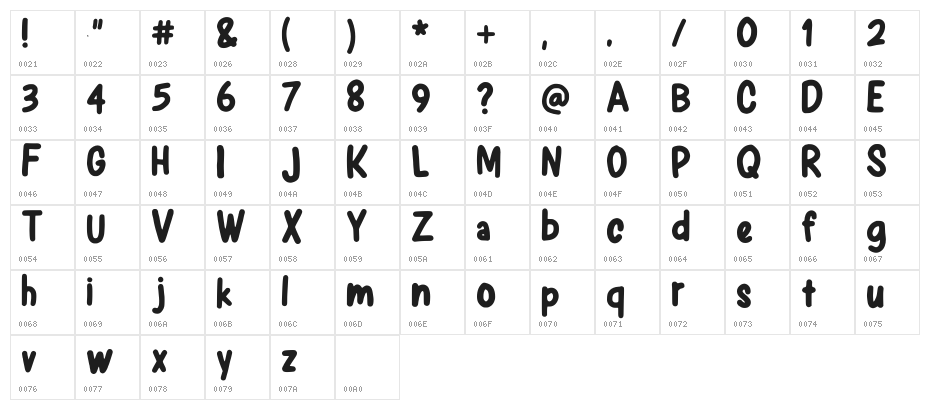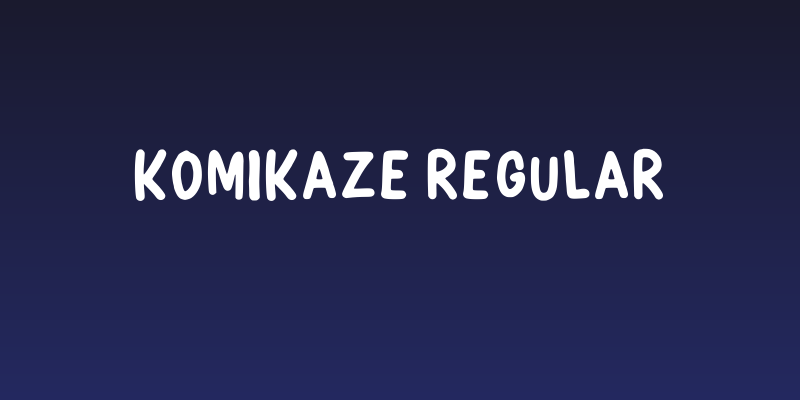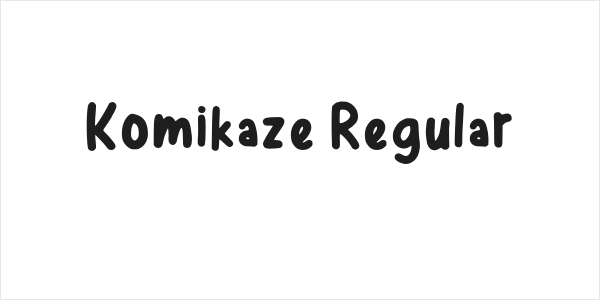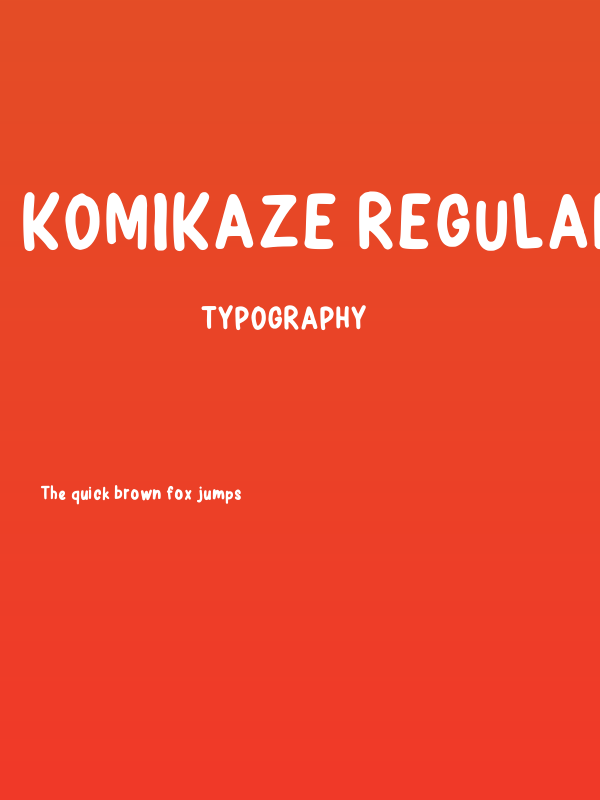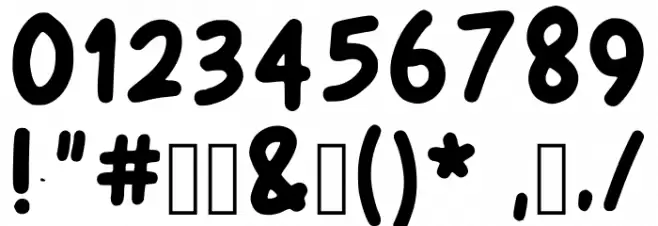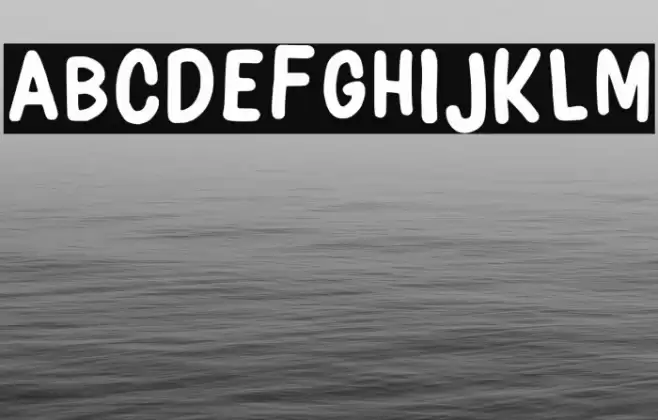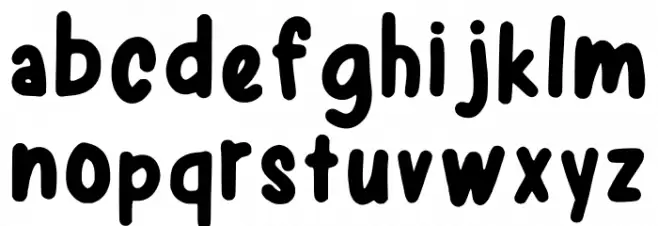
Komikaze Regular Font
Komikaze Regular Description
This font features a playful and bold style, characterized by its rounded and slightly irregular letterforms. The strokes are thick and consistent, giving it a strong presence on the page. The uppercase and lowercase letters maintain a uniform width, contributing to a cohesive look. The numbers and special characters follow the same design principles, ensuring readability and visual harmony. Its informal and friendly appearance makes it suitable for creative and casual applications.
| Proposed Projects | Ideal for comic books, children's books, playful branding, and informal posters. |